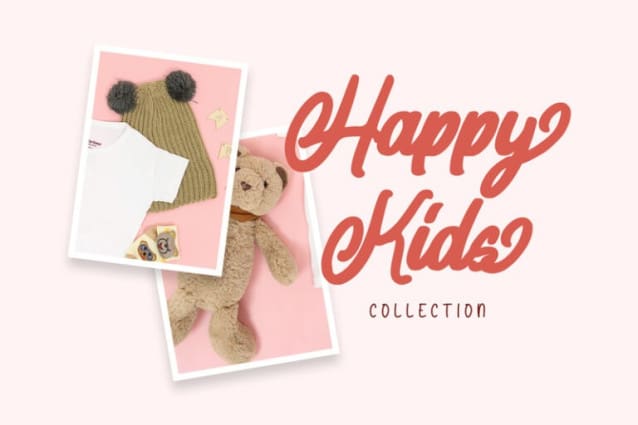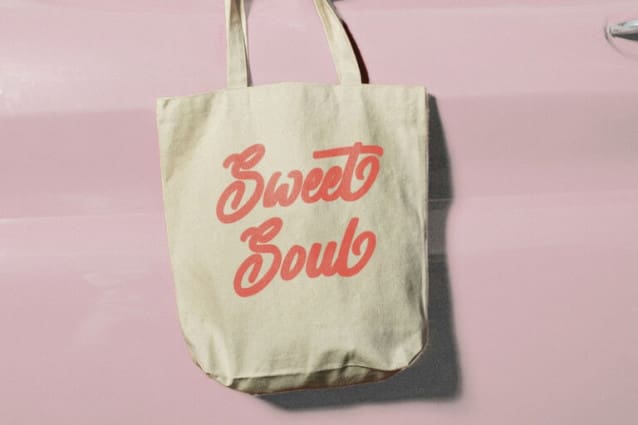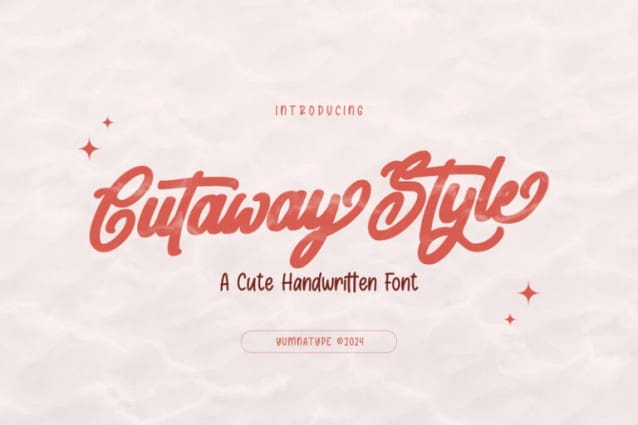
Cutaway Style Font
Cutaway Style Font, is a charming script font that effortlessly captures the elegance of handwritten lettering. The fairly thick weight of the font adds a comforting solidity, ensuring that every word feels grounded and substantial.
One of the most enchanting characteristics of Cutaway Style is its subtle detailing, including swinging ends on select letters. These delicate flourishes add a touch of whimsy and personality to the font. These swinging ends infuse the text with a sense of movement, creating an inviting rhythm that draws the reader in.
Despite its handwritten appearance, Cutaway Style maintains excellent legibility, thanks to its carefully crafted design and subtle contrast. The contrast is not too visible, ensuring that the text remains easy on the eyes and suitable for extended reading.